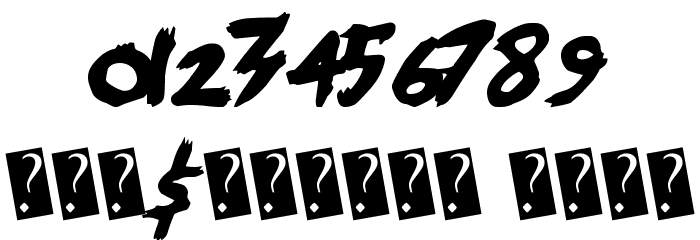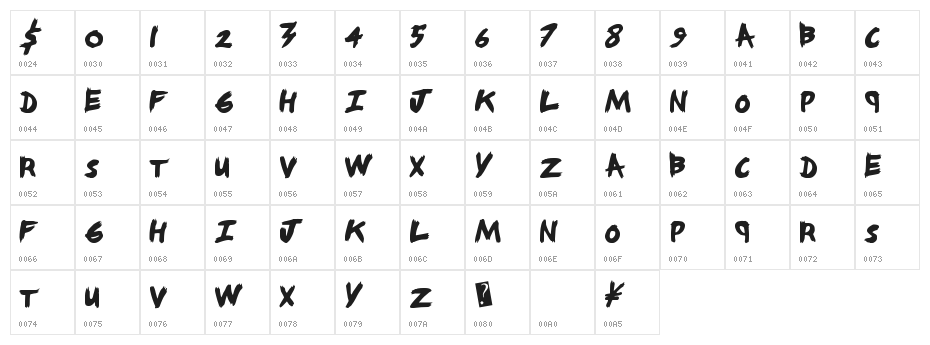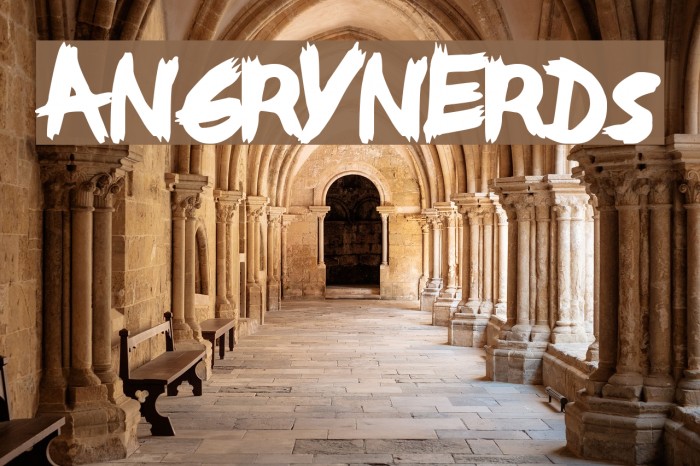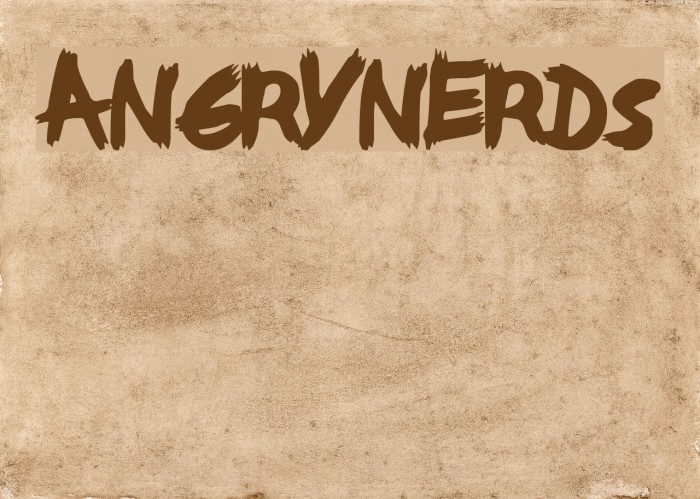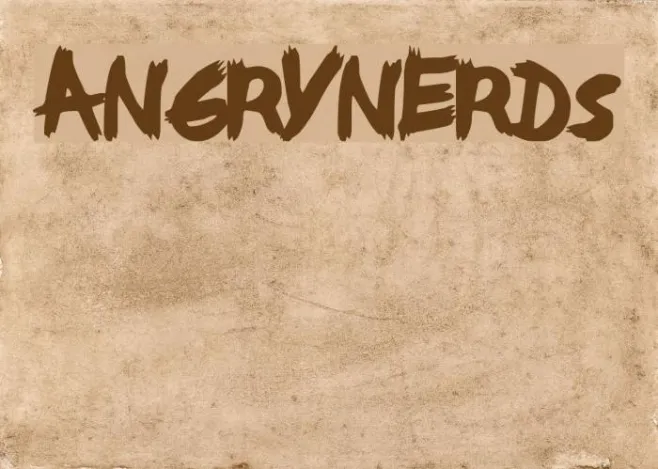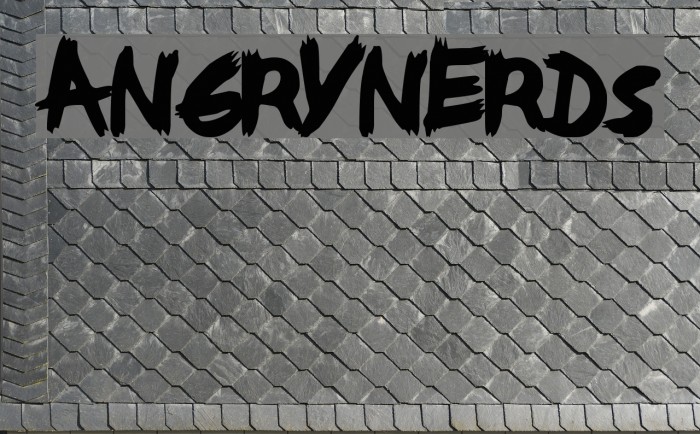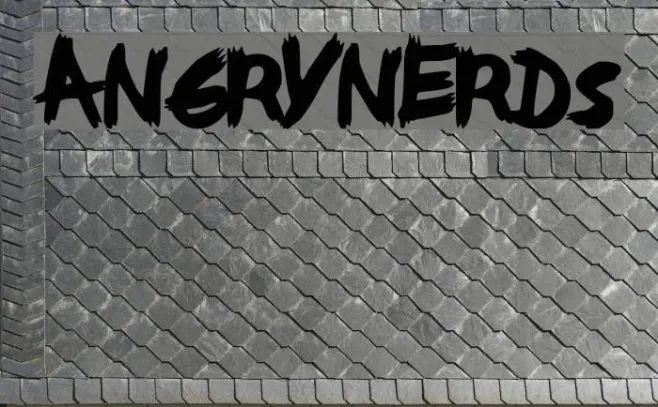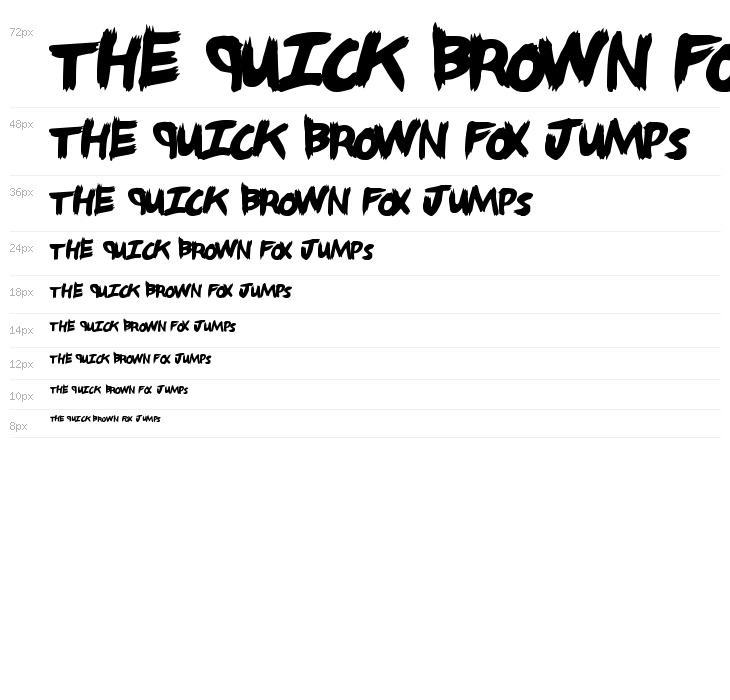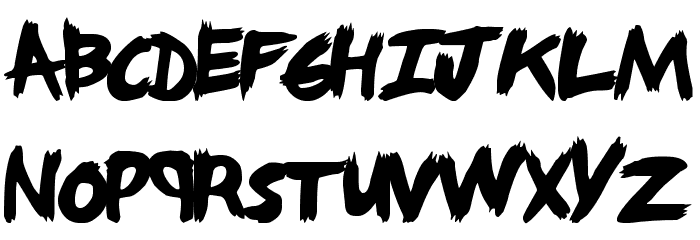
AngryNerds Font
AngryNerds Description
This font features a bold, energetic style with a brush-like appearance, giving it a dynamic and edgy feel. The strokes are thick and uneven, creating a sense of movement and intensity. The uppercase and lowercase letters maintain a consistent style, while the numbers and special characters complement the overall aesthetic. The font's aggressive and expressive nature makes it stand out, suitable for projects that require a strong visual impact.